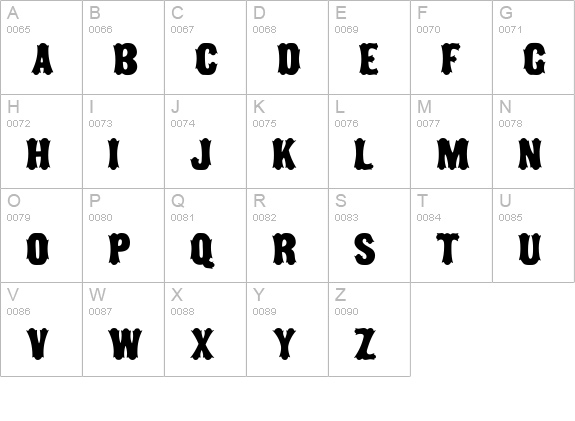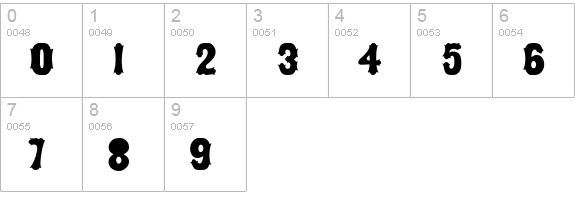
Tuscan MF Narrow Font Details
Tuscan MF Narrow is a distinctive, condensed-width variant in the Tuscan typeface family \xE2\x80\x94 well suited to design and typography projects.